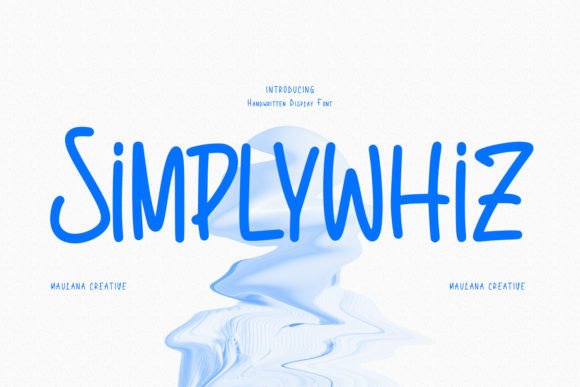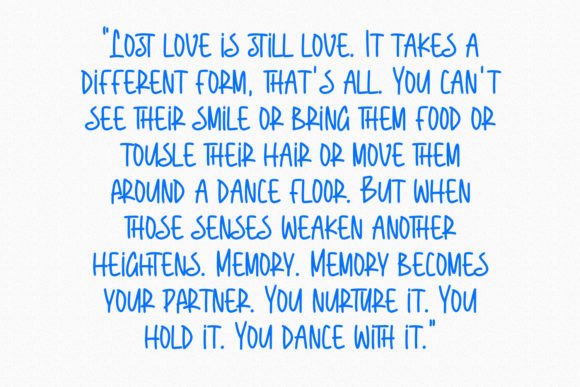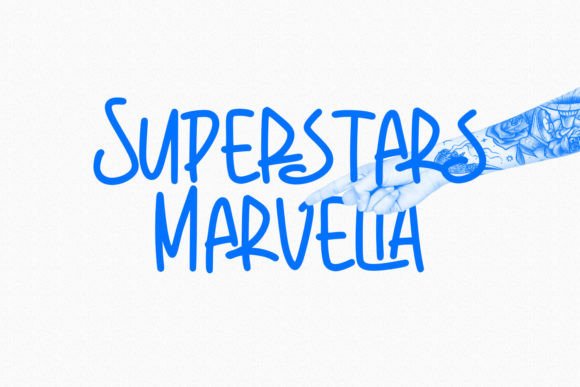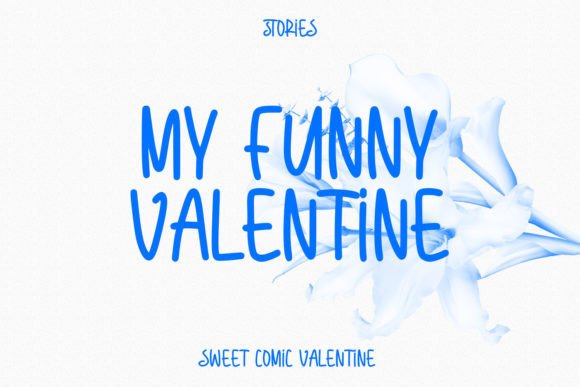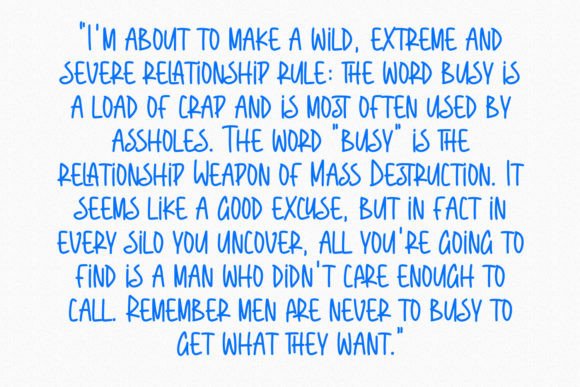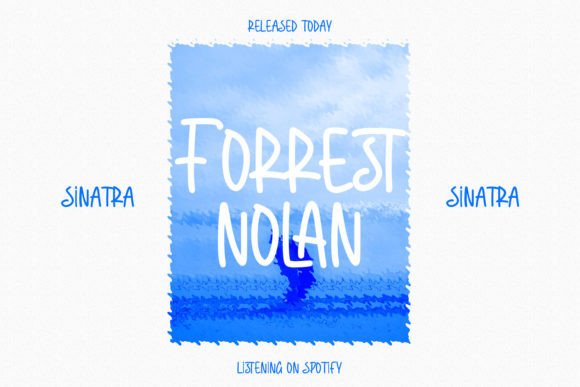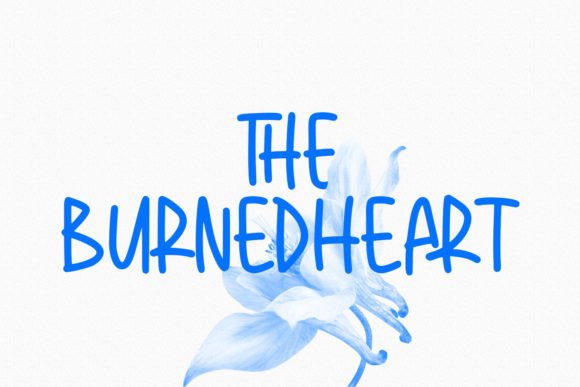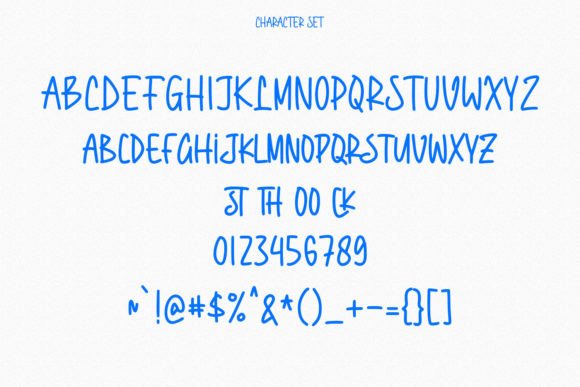
Simplywhiz Font
**Simplywhiz – Cool and Casual Handwritten Font for Vibrant Designs**
Simplywhiz is a charming and casual handwritten font that brings a touch of whimsy and playfulness to your creative projects. Here’s why Simplywhiz is an excellent choice for various design endeavors:
1. **Casual Elegance:** Simplywhiz combines casual handwriting with an underlying sense of elegance, making it suitable for a wide range of applications.
2. **Playful Vibes:** The font’s quirky and whimsical style adds a playful element to your designs, making them stand out and capture attention.
3. **Versatile Usage:** Whether you’re creating posters, invitations, logos, social media posts, or branding materials, Simplywhiz offers versatility in design applications.
4. **Unique Handcrafted Feel:** Its handcrafted appearance gives your projects a personal and unique touch, making them more relatable to your audience.
5. **Digital Content:** Use Simplywhiz for digital content like blogs, websites, online ads, and social media graphics to infuse a friendly and approachable vibe.
6. **Greeting Cards:** Design heartfelt greeting cards, thank-you notes, and invitations that convey warmth and sincerity with this handwritten font.
7. **Creative Projects:** Simplywhiz is perfect for creative projects such as art prints, crafting, scrapbooking, and DIY endeavors, adding a fun and artistic flair.
8. **Children’s Content:** Its playful charm makes it an excellent choice for children’s books, educational materials, and playful illustrations.
9. **Readable and Accessible:** Despite its casual style, Simplywhiz maintains readability, ensuring that your message is clear and easily understood.
10. **Professional yet Friendly:** It strikes a balance between professionalism and approachability, making it suitable for both business and personal projects.
11. **Natural Flow:** The font’s natural flow and irregular letterforms give it an authentic handwritten feel, making it relatable and engaging.
12. **Contemporary Aesthetics:** Simplywhiz offers a contemporary look while retaining a sense of timelessness, ensuring that it remains relevant in design trends.
13. **User-Friendly:** Designers and creators of all levels can easily work with Simplywhiz to achieve creative and vibrant results.
14. **Memorable Branding:** Use Simplywhiz to create memorable and friendly branding materials that leave a positive impression on your audience.
15. **Colorful Expression:** Pair Simplywhiz with vibrant colors to express joy, excitement, and creativity in your designs.
Simplywhiz is the perfect font to add a touch of whimsy, personality, and vibrancy to your design projects. Whether you’re looking to create playful content or infuse a sense of approachability into your branding, this casual handwritten font is up to the task. It invites your audience to engage with your designs and conveys a sense of warmth and authenticity, making it a valuable asset for designers and creators seeking to connect with their target audience in a fun and relatable way.